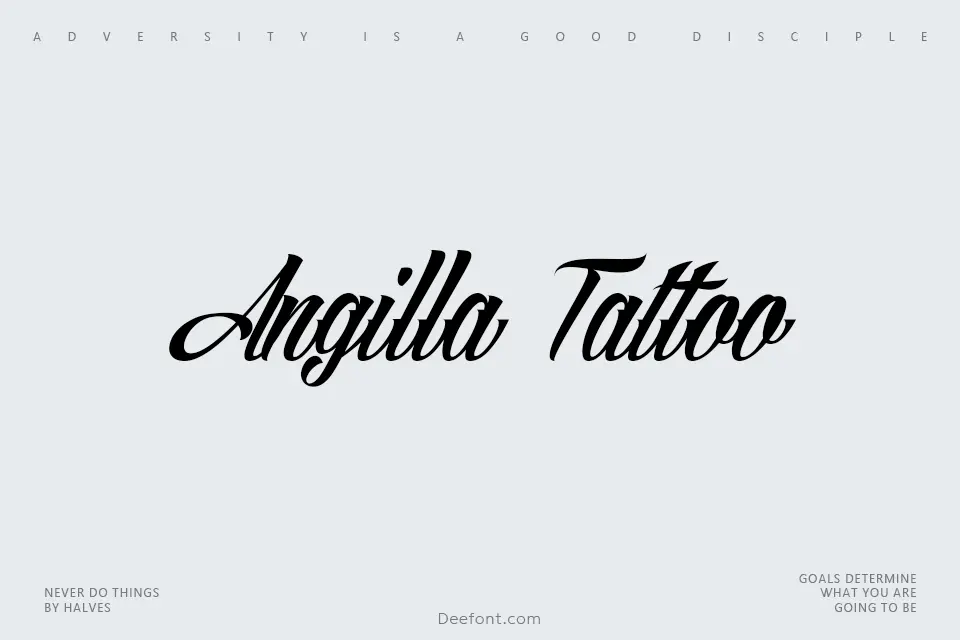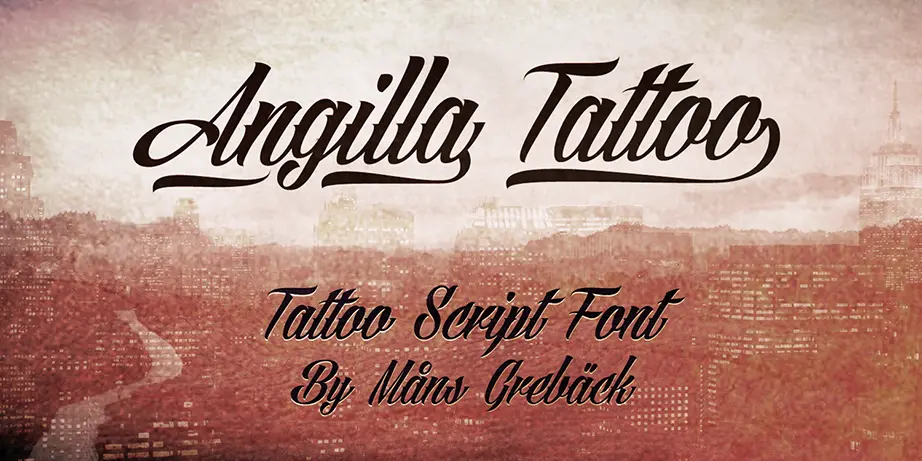
Angilla Tattoo Font
Angilla Tattoo is an ornate script font designed with elaborate swashes and dynamic letterforms ideal for tattoo-inspired designs. This heavy, flowing typeface features decorative elements that add personality and flair to any project. With extensive character support including uppercase, lowercase, punctuation, and special swash variations accessible through number keys, Angilla Tattoo brings confidence and attitude to logotypes, headlines, and creative displays. The font combines readability with artistic expression, making it perfect for concert posters, branding projects, and designs requiring visual impact.